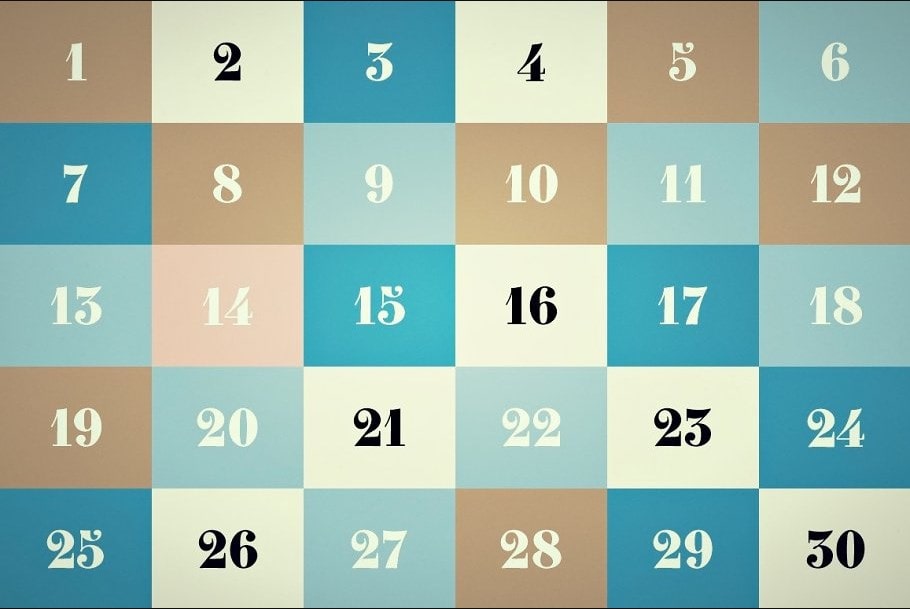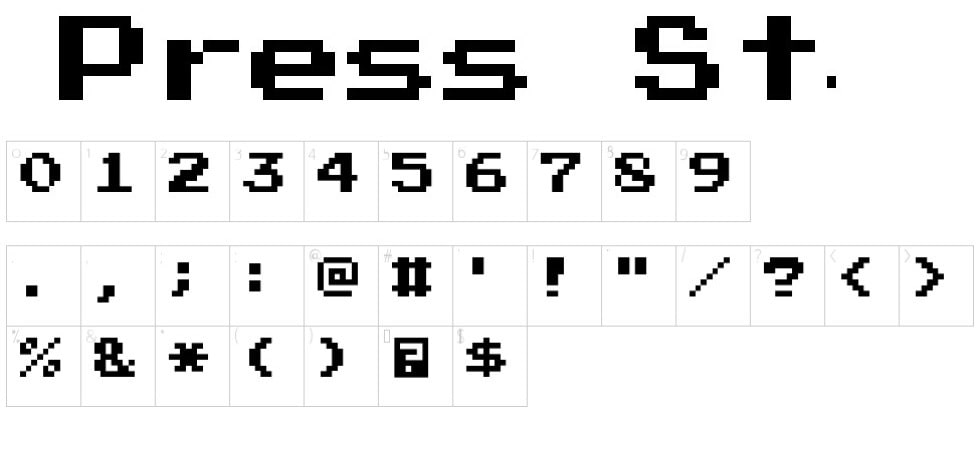
Numbers can be a bit boring, and face it – to a lot of them, they can be quite a headache, but add ‘art’ to them, and you will get to see the fun side of them. From a bland aspect, they become quite beautiful and full of life and fun.
That’s right – today we are talking about ‘numbers’ and their use in typography. Finding number fonts can be quite daunting, if you don’t know where you are looking into, but worry not; today, we have brought you a biggie list of number fonts that you can use in your design project!!
So, without any further ado, let’s get to know some of the best number fonts that there are!!
Number 514
Known to be an early serif font, this font is beautiful to look at, thus bringing out the Halloween atmosphere of the 90s.
This font is suitable for designing posters, and trust us – it will look stunning.
Interstellar
A beautiful number font, this font gives off the vibe of being a modernistic font – and as such, it would look great in design projects such as web development in the creation of logos, book cover titles, and such.
I’m this many!
Designed by Kat’s Fun Fonts, this font is perfect for design projects to infuse an element of fun – and as such, this font has faces and hands-on each number.
Crossword
Just like the name suggests, this font’s main purpose was to create crossword boxes without the need for any extra software.
With this font, now, you can create crossword boxes without any hitch – if you have any design project that needs crossword boxes, now, you know which font to turn to!!
Ewert
This font looks like it’s standing on ornamental legs, that resembles classic and vintage furniture. Bold and decorative, this font would look great when creating tattoos or say any posters, brochures, or flyers for carnival events.
First-year dings
Another cute and fun-looking font created by Kat’s Fun Fonts, this font has candle flames of all things on top of each font (or number), for bringing the inner child in you.
Bungee shade
This font has the classic race countdown vibe, and as such, if you want to add a rush of adrenaline to your design project, then, this is the font to go for. This font has a boxy appearance, and thus, it will catch the attention of the viewers at first glance.
Handwritingg
This is a number font that is created entirely by hand – it’s eccentric, and can breathe life to your design project.
Kumar one
A one-of-a-kind font, this font is slim and bold and will fit any design projects that need exceptional styling. Made entirely out of straight lines, all the elements of this font are drawn with soft curves and are faceted.
Press Start
This font has the look of a pixelated font, so, a fan of 80s pixel art games – this font is for you. With each number having a signature style, this font is perfect for design projects that focus on websites dealing with games for that old-school nostalgic feel.
Clement Numbers
A beautiful number font, this font is inspired by a forgotten 1838 Type Specimen Book that was issued by Fonderie Clement, Bruxelles.
It consists of numerals, along with punctuation marks with a set of special characters.
Mrs. Sheppards
If you are the type for numeric textual designs, then, this font is for you – this font is inspired by the lettering of the 1930s, and as such, this font, too, comes with bold and strong numbers.
Made to mimic the style of real handwriting, this font is a must if you are the artsy type.
Digital-7
This font looks like the iconic digital font that we all see on calculators or digital watches. Free to use for personal projects, this font comes in four versions – regular, italic, mono, and mono-italic.
Pompadour numerals
Dubbed as one of the best extravagant number fonts, this font is inspired by the extravagant hairstyle of the 50s with the same name.
Want to draw the attention of the viewers to the numbers at first glance such as the date on posters for any event – this is the font that you may want to remember.
Special Elite
A handwritten font, it is inspired by the Smith-Corona Special Elite Type Number NR6 and Remington Noiseless typewriter models – this font is perfect to use for design projects that focus on nostalgic designs or say, dates of some past event.
Crash numbering
This is a simple number font that can be used in design projects that gives off a vibe of minimalism. Free to use for both personal and commercial projects, this font comes with 42 glyphs, numbers with basic math symbols.
Jersey M54
This is a modern slab-serif font – sleek and bold, this font is free to use for personal projects, and consists of both alphabetic and non-alphabetic characters, including 40 glyphs.
This font also comes with an extended character set for Latin, and as such, you can use it for more than 30 languages.
Monoton
Inspired by the metal press fonts of the 1930s, this font can give a unique look to your numerals due to its quirky design.
A Google font – free to use for both personal and commercial projects – this font also comes with punctuation marks and alphabetic characters.